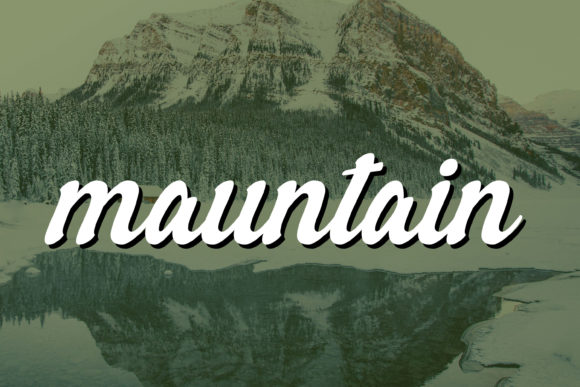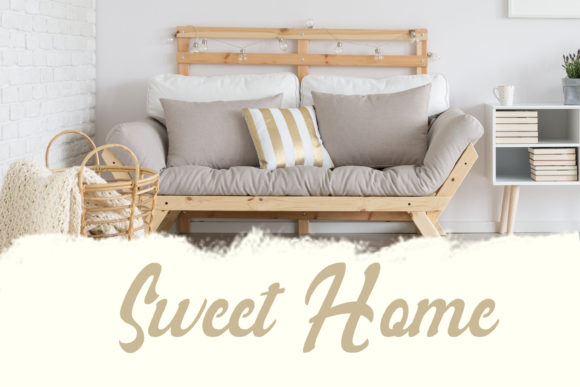
Colorado Font
db-ku.com - Script & Handwritten -- Colorado is a retro, paint brushed handwritten font. It is the best choice for creating eye catching logos, branding and quotes. This font is PUA encoded which means you can access all glyphs and swashes with ease!